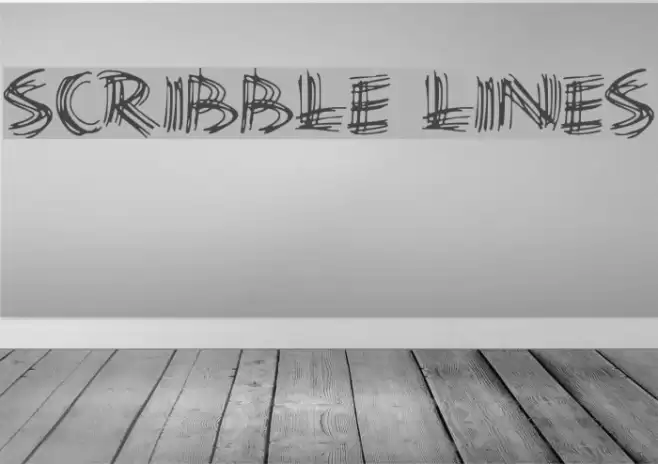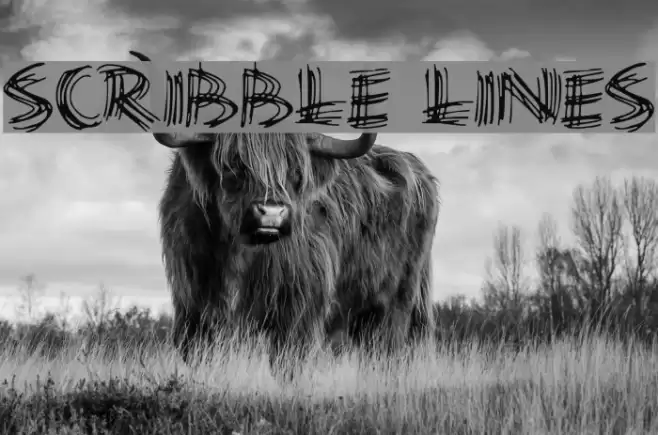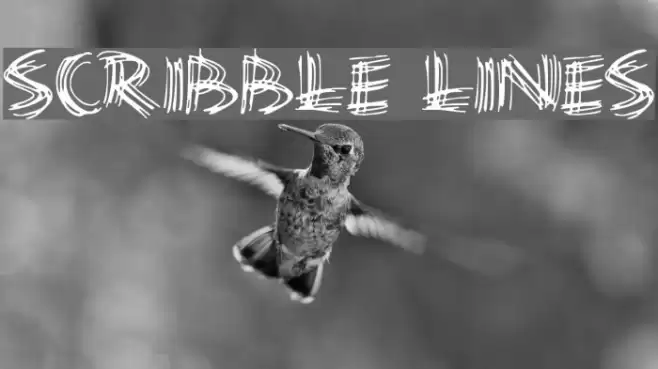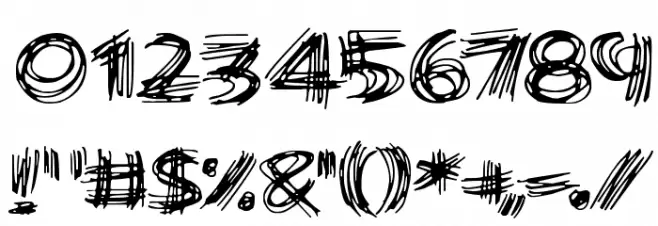
Scribble Lines Font
Scribble Lines Description
This font features a unique, hand-drawn style that mimics the appearance of scribbled lines. Each character is composed of multiple overlapping strokes, creating a dynamic and energetic look. The letters have a playful and informal vibe, making them stand out with their bold, sketch-like appearance. The font maintains a consistent weight throughout, with each character exhibiting a slightly irregular form that enhances its casual aesthetic. The overall design is reminiscent of doodles or graffiti, offering a creative and artistic flair. This font is ideal for projects that require a touch of whimsy and creativity.
A playful, hand-drawn font with a scribbled, sketch-like appearance from Uncategorized fonts.
- Proposed Projects: Perfect for creative projects such as posters, children's books, artistic branding, and playful invitations.
- Use Case: Headlines, Logos, Artistic projects